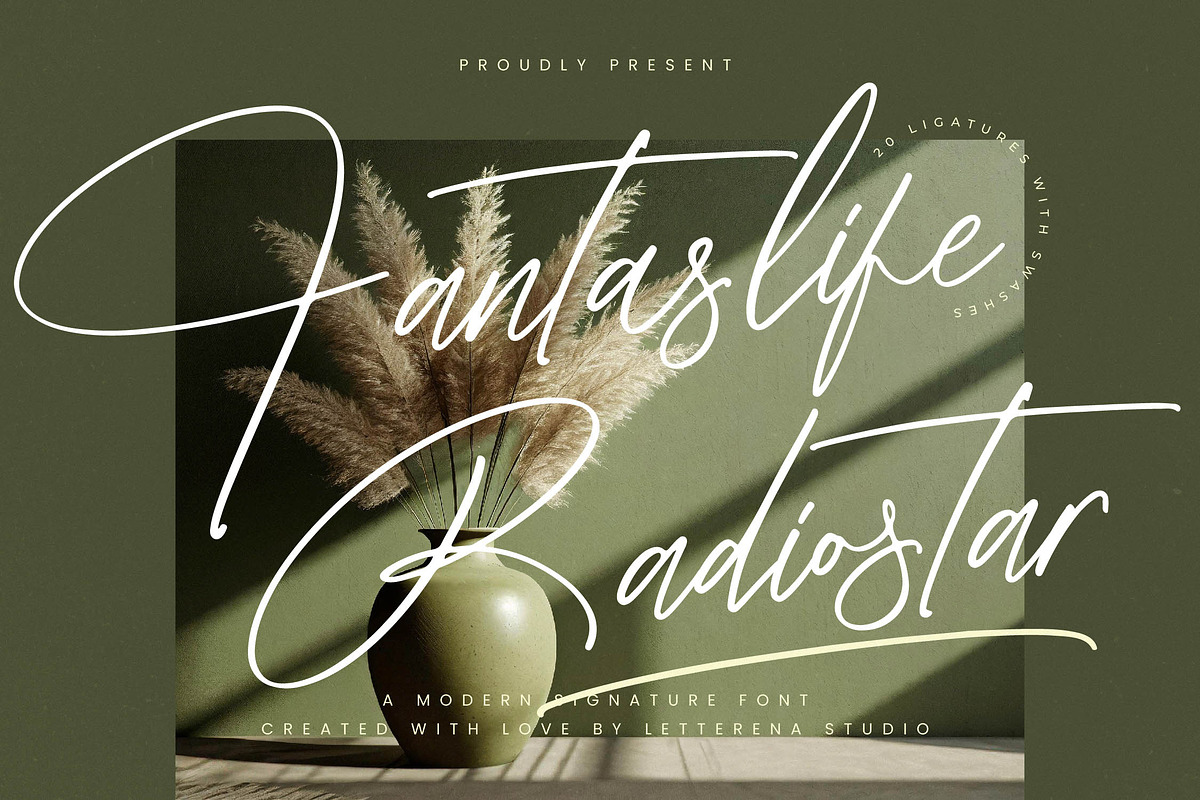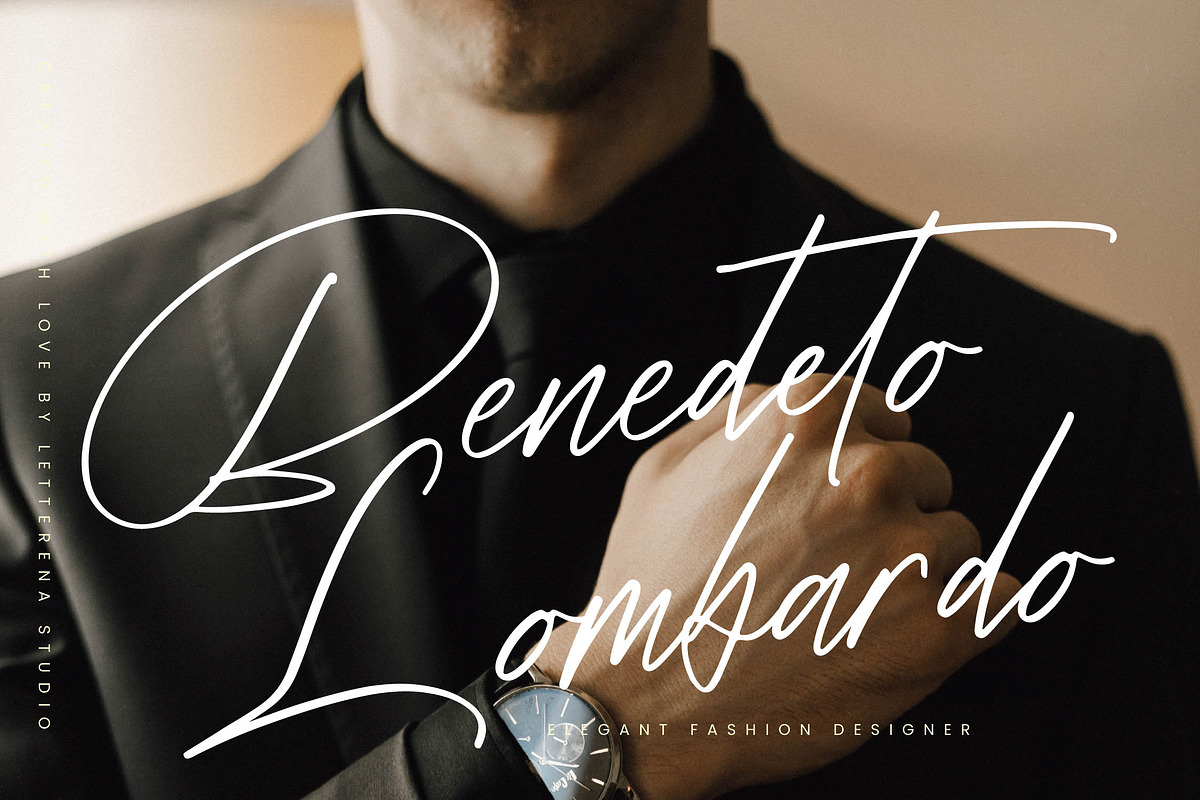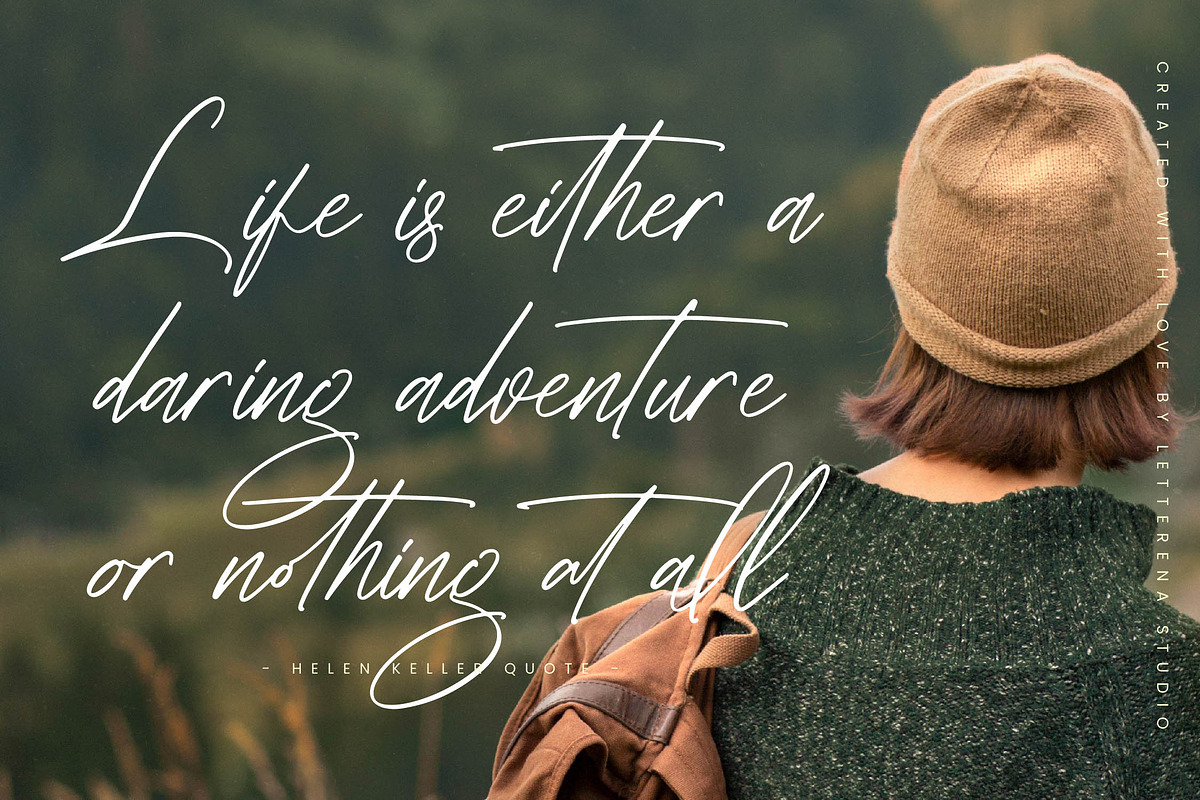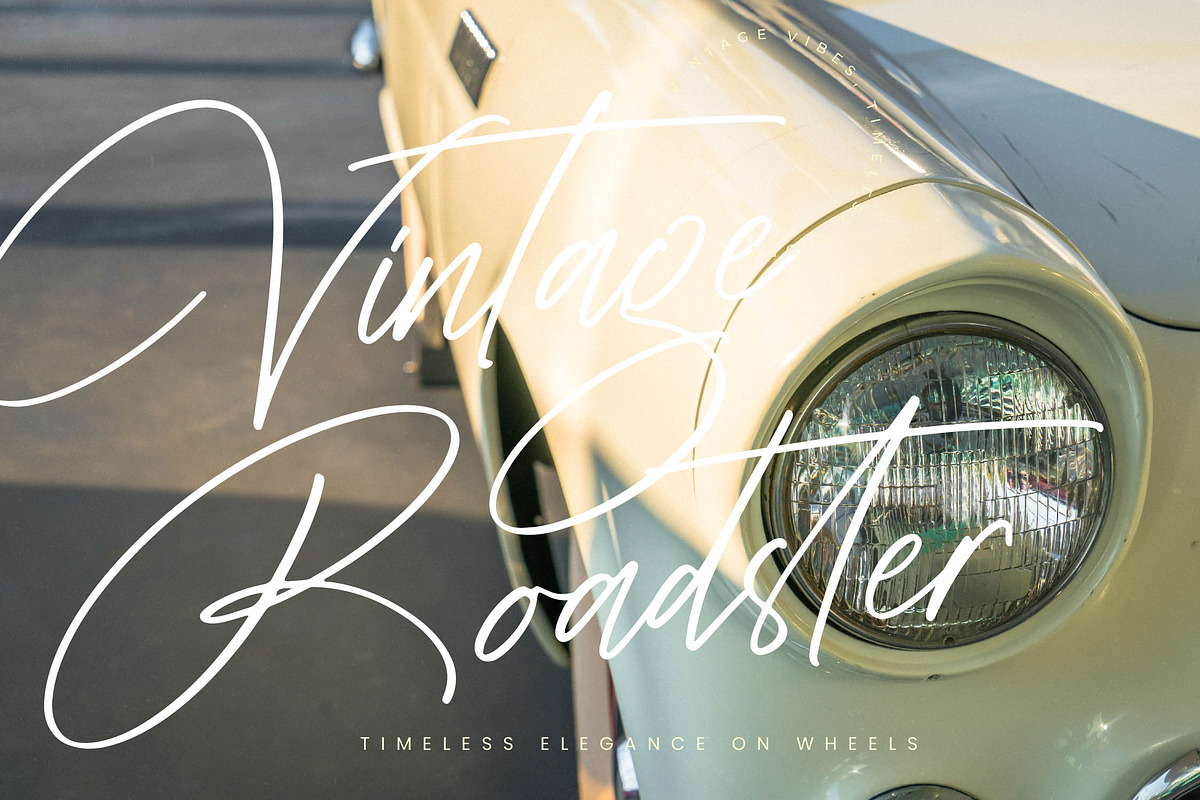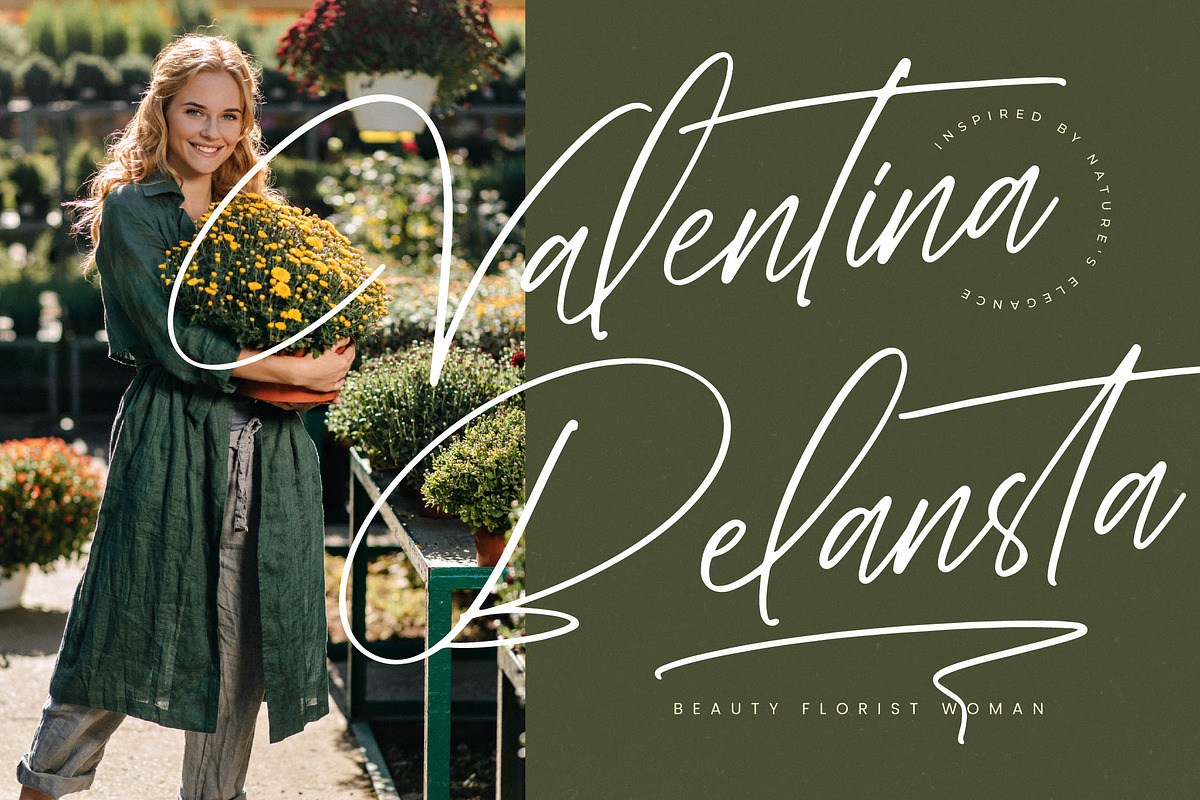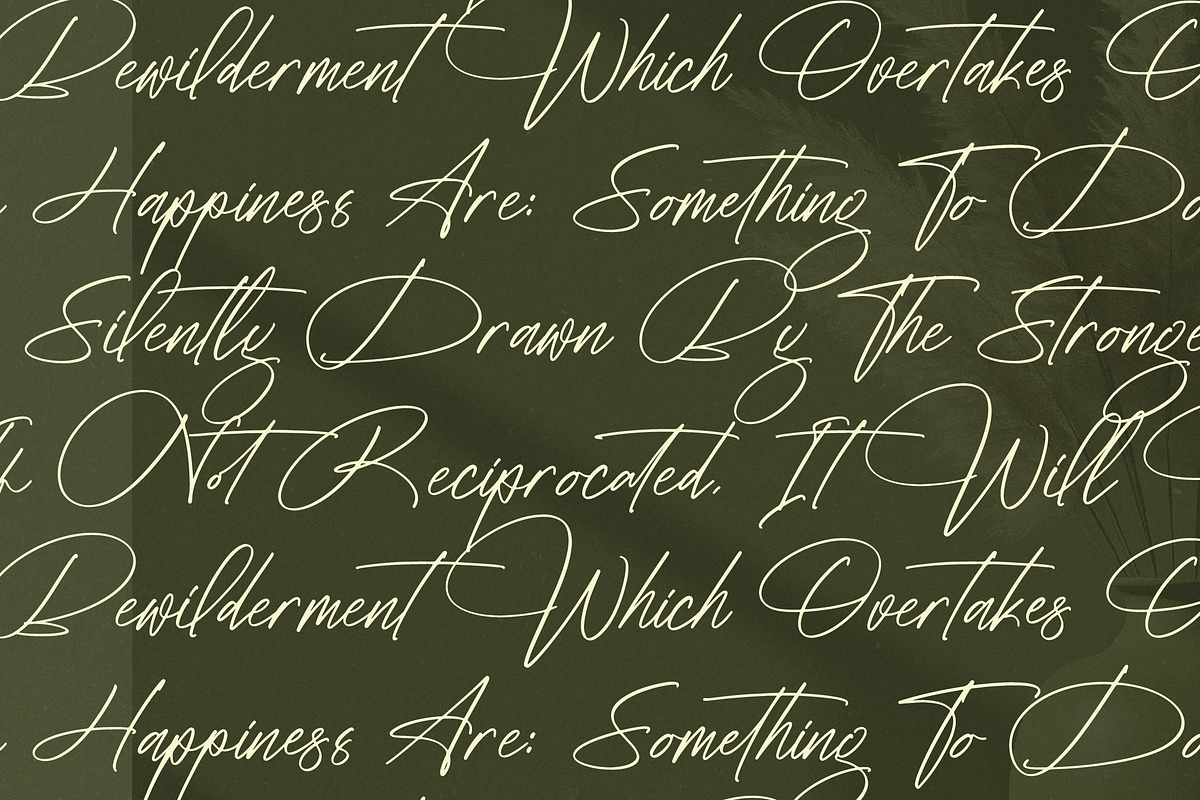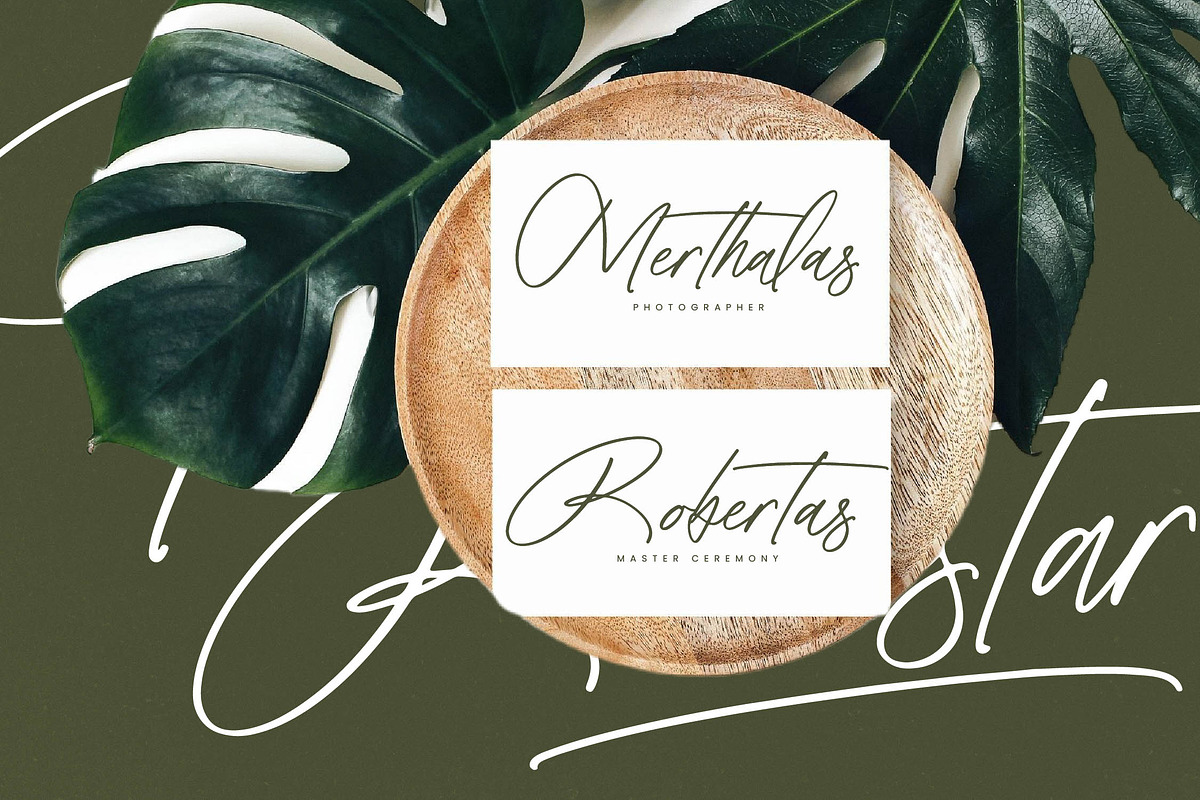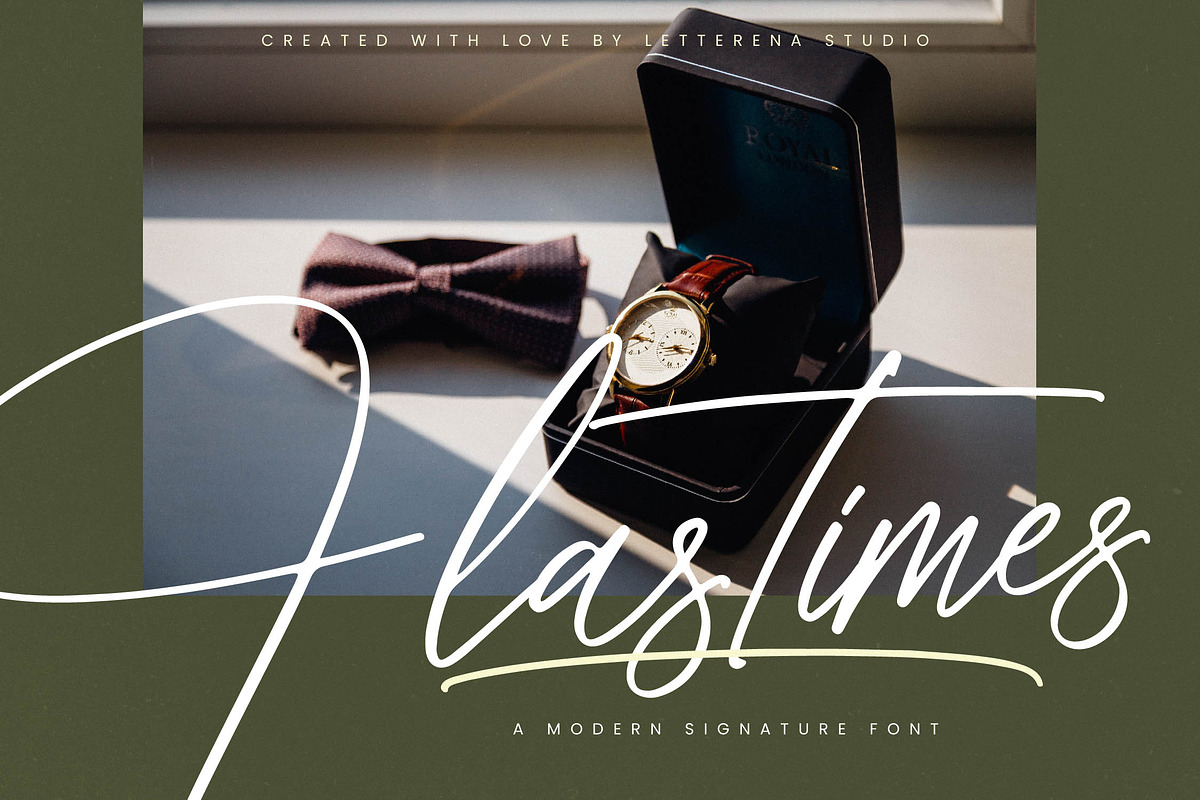
Fantaslife Radiostar Signature Font
Fantaslife Radiostar Signature Font by Letterena Studios Script is a font selected for branding, posters, packaging, typography.
- Ligatures and Alternative Style Stylistic Set
Why Fantaslife Radiostar Signature Font is worth a look
Fantaslife Radiostar Signature Font by Letterena Studios Script fits naturally into Branding, posters, packaging, typography.